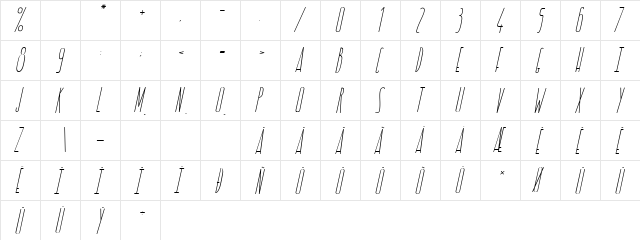
LOVE BRINGS FREEDOM Regular
| Foundry | Octotype |
| Designer | Octotype |
Design Context for LOVE BRINGS FREEDOM Typeface
LOVE BRINGS FREEDOM takes a measured approach to typography — its balanced proportions and neutral character make it a reliable workhorse for both digital and print work.